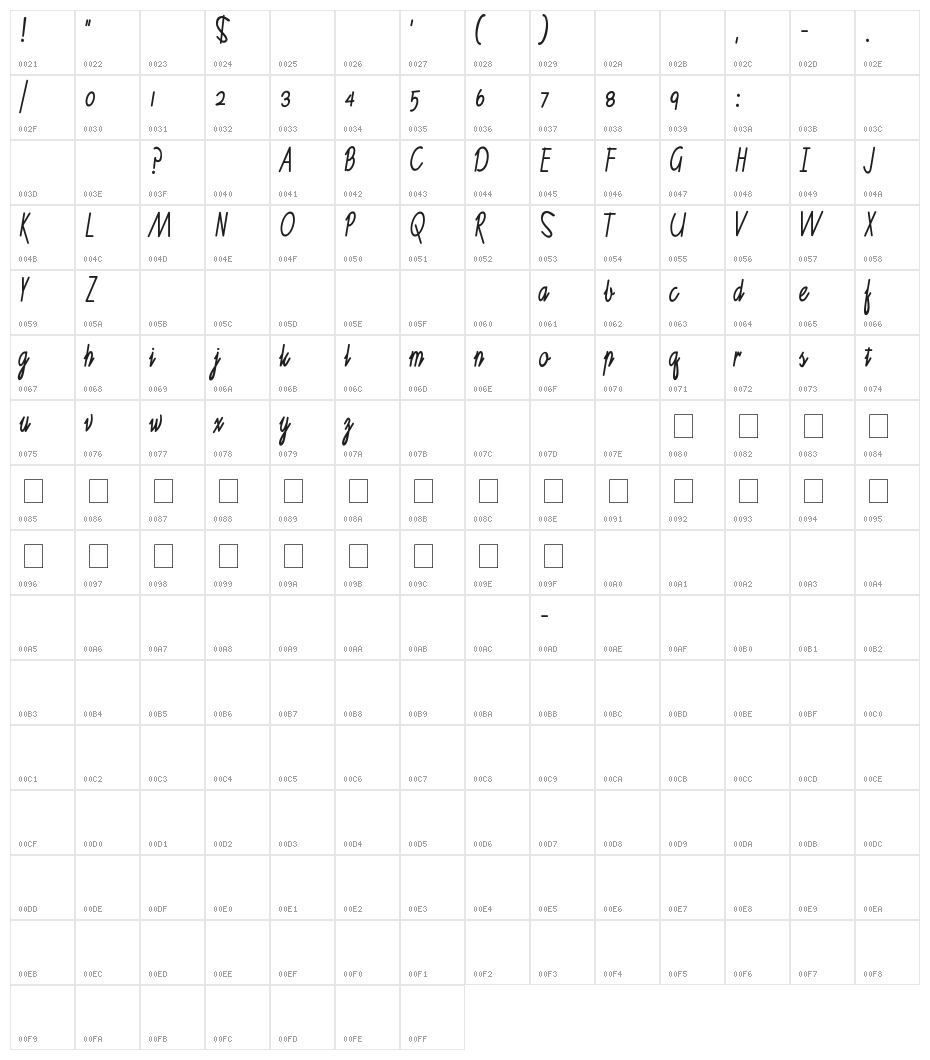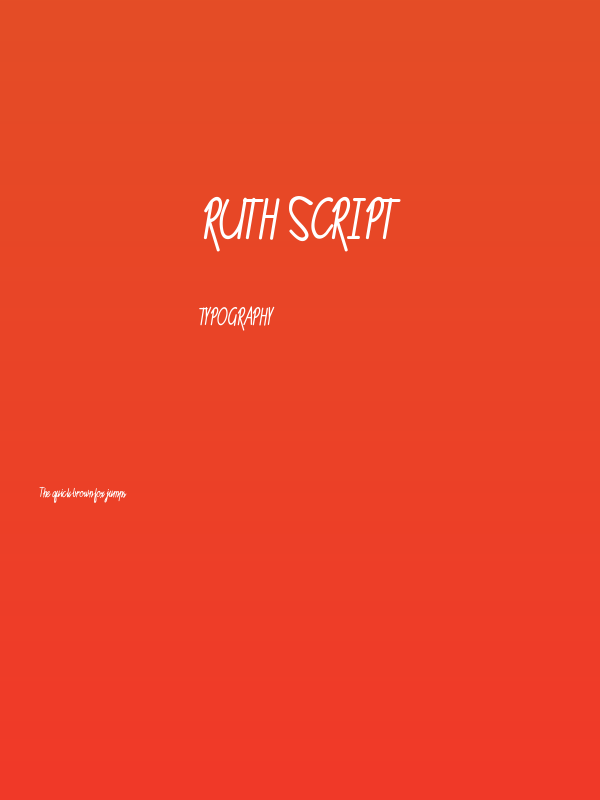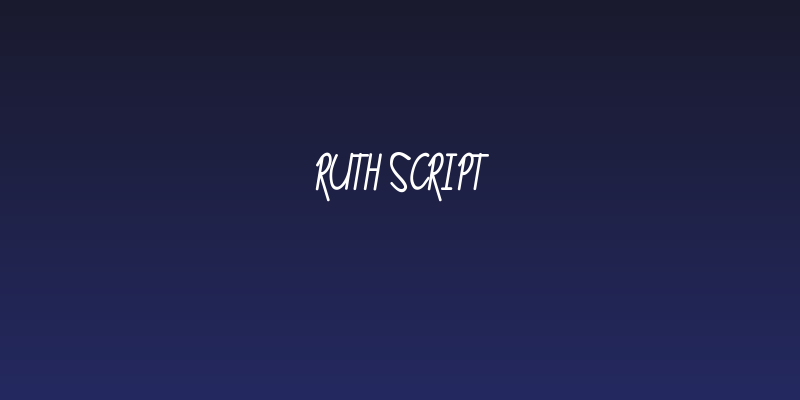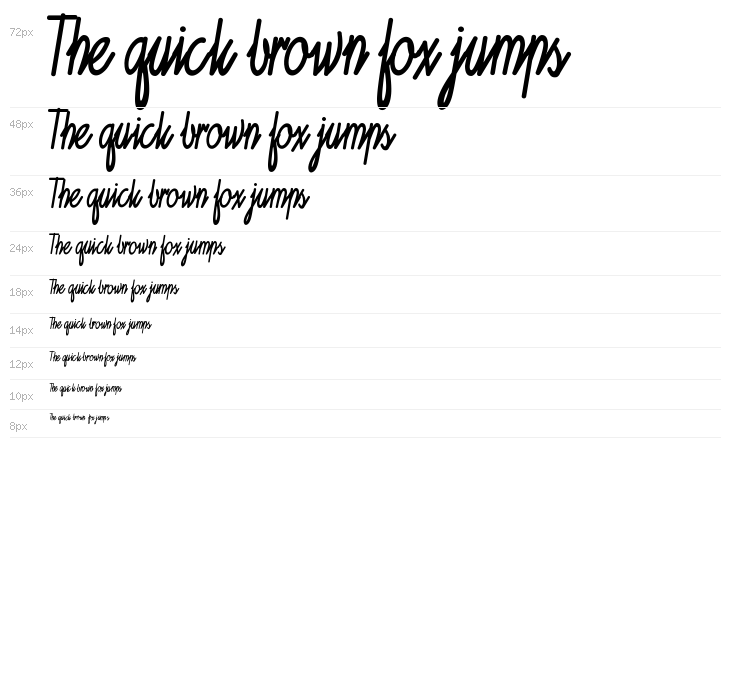
Ruth Script Font
Ruth Script Description
This font exudes a lively and dynamic energy with its fluid, cursive style. The uppercase letters are tall and slightly narrow, giving a sense of elegance and sophistication. The lowercase letters flow seamlessly into one another, creating a cohesive and connected look. The numerals are consistent with the overall style, maintaining the same fluidity and grace. Special characters are designed with the same attention to detail, ensuring they blend well with the rest of the typeface. The strokes are moderately thick, providing a balanced contrast that enhances readability while maintaining the script's decorative appeal.
| Proposed Projects | Ideal for wedding invitations, greeting cards, branding projects, and elegant packaging designs. |